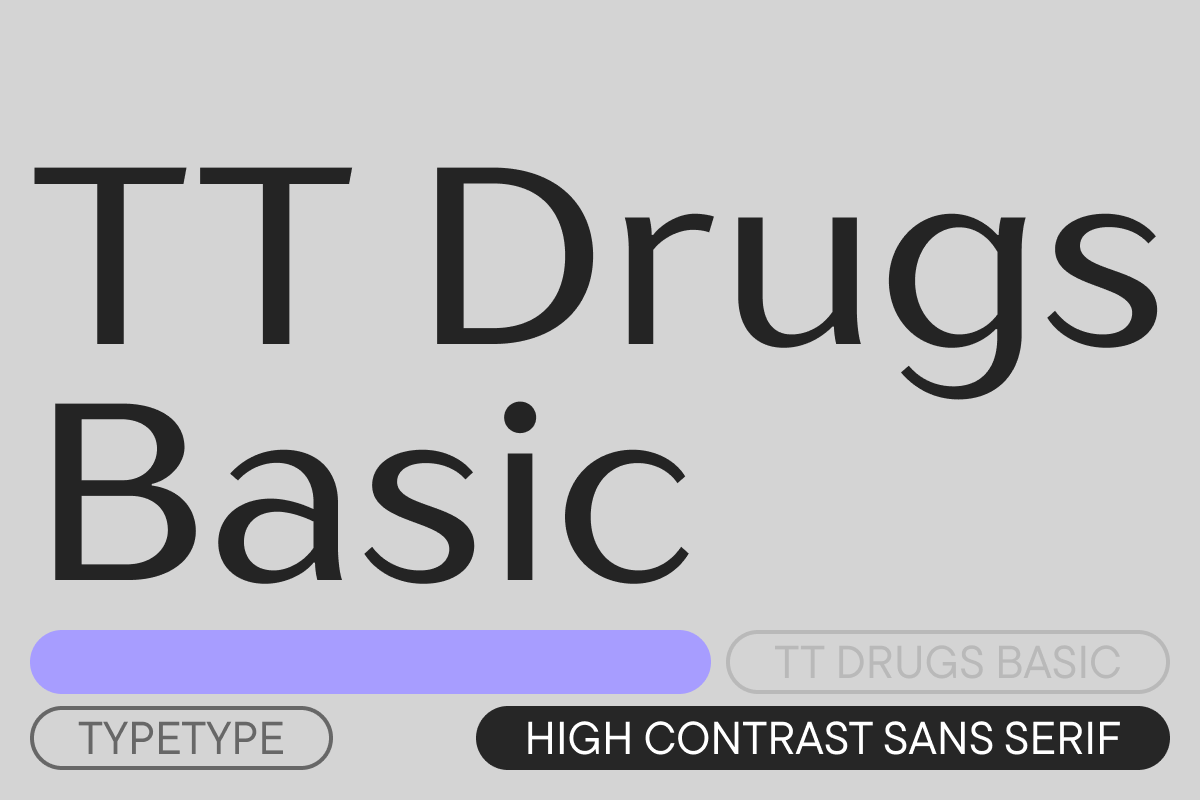
TT Drugs Thin Italic
TT Drugs is a typeface that doesn’t feature serifs but stands out for its high contrast. Its narrow terminals lend an elegant and sophisticated appearance. The typeface’s name reflects the story of its creation: the font family was initially intended to be used for the pharmaceutical industry. However, in practical use, the font revealed its multiple dimensions and seamlessly blended with differently themed projects.